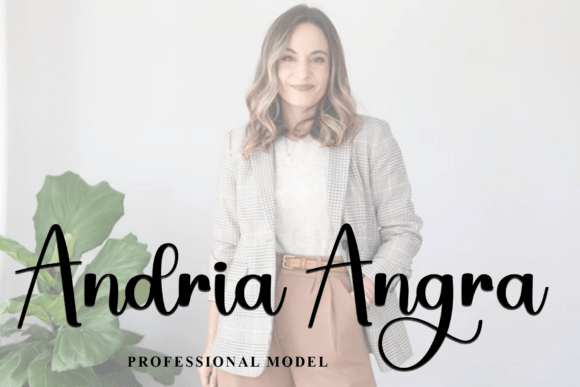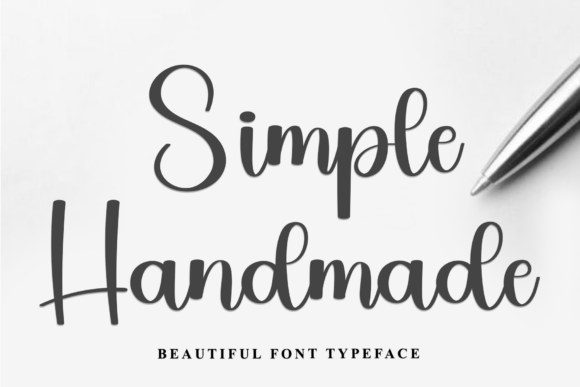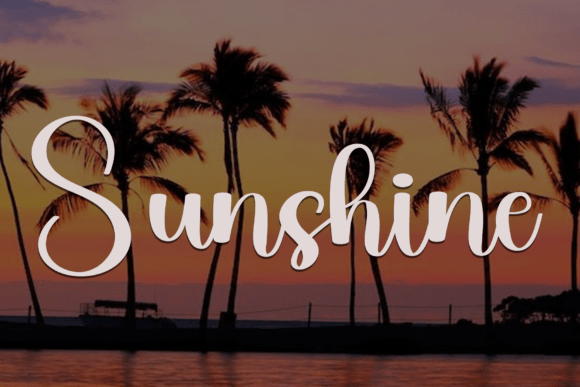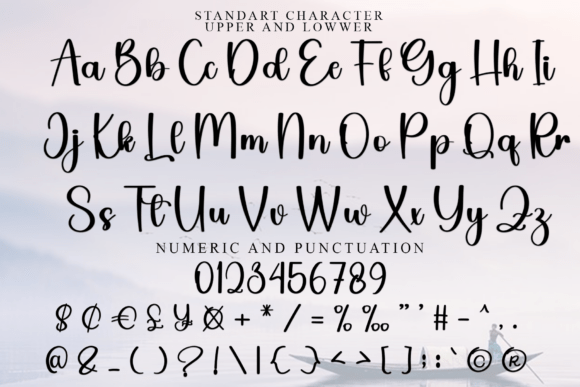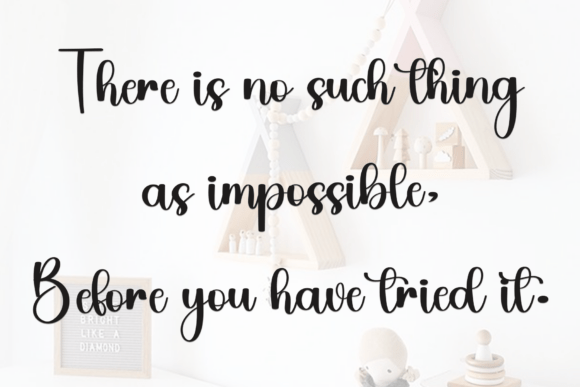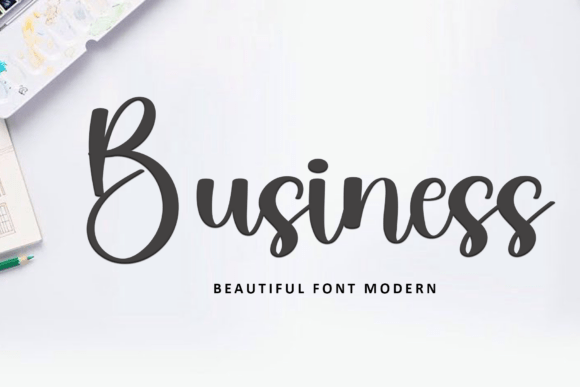
Bright Sunlight Font – Free Download
Introduction to Bright Sunlight Font
Bright Sunlight is a festive and merry typeface that captures the spirit of the holiday season.
Key Features of Bright Sunlight Font
Why Choose Bright Sunlight Font?